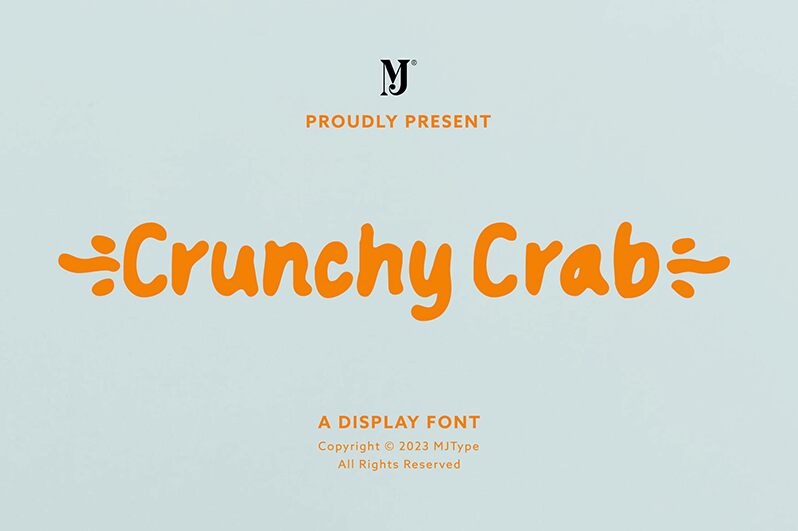
Crunchy Crab
Crunchy Crab, the delightful creation by MJType, is a captivating display font that adds a fun and playful touch to any project. With its semi-bold weight, this comic-inspired typeface is perfect for children's books, animated videos, and comic strips. Its unique design enhances readability while exuding a lively charm. Whether you're designing posters, logos, or packaging, Crunchy Crab will infuse your projects with a sense of whimsical adventure. Elevate your designs with this font that guarantees to engage audiences of all ages.